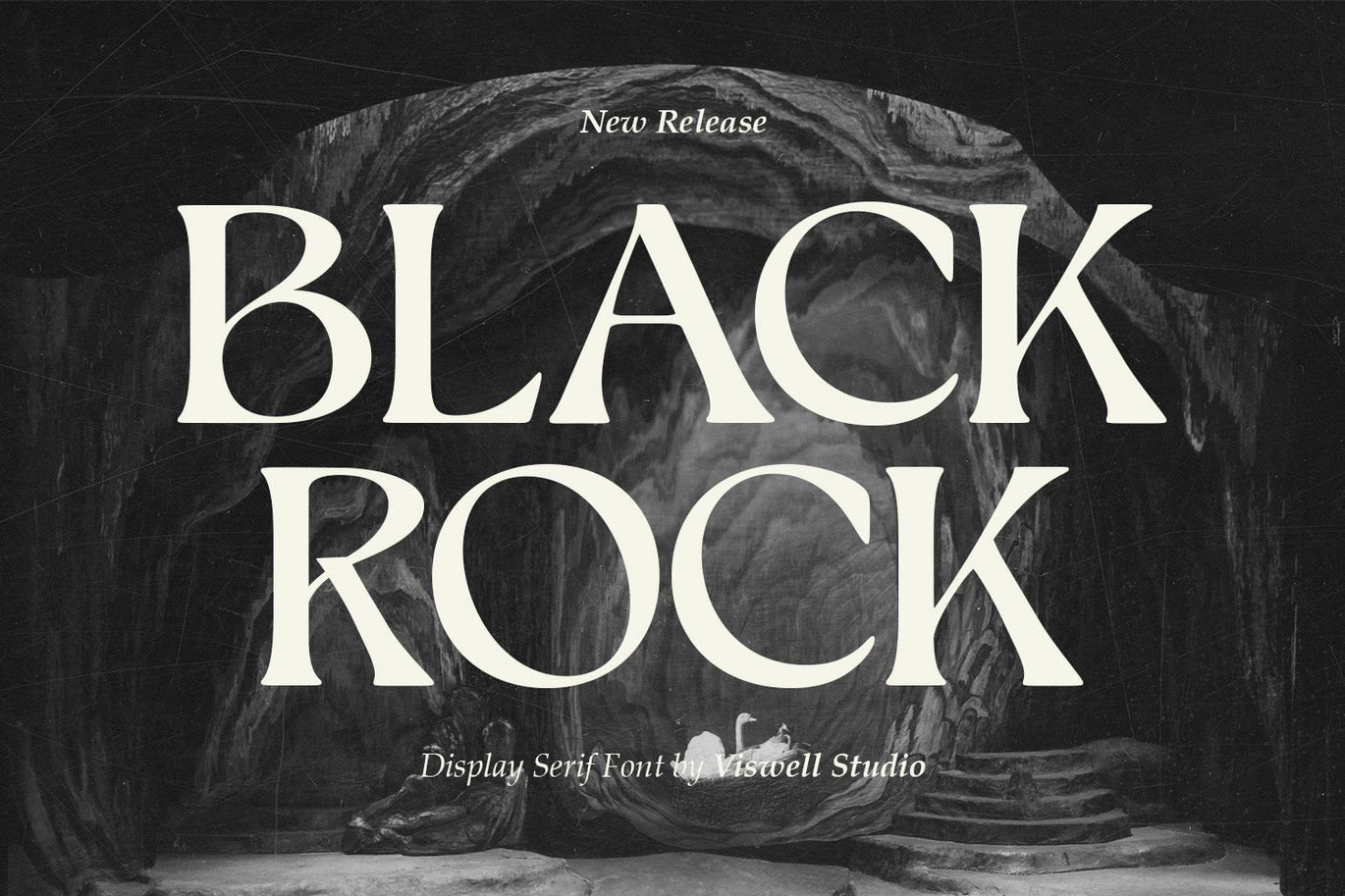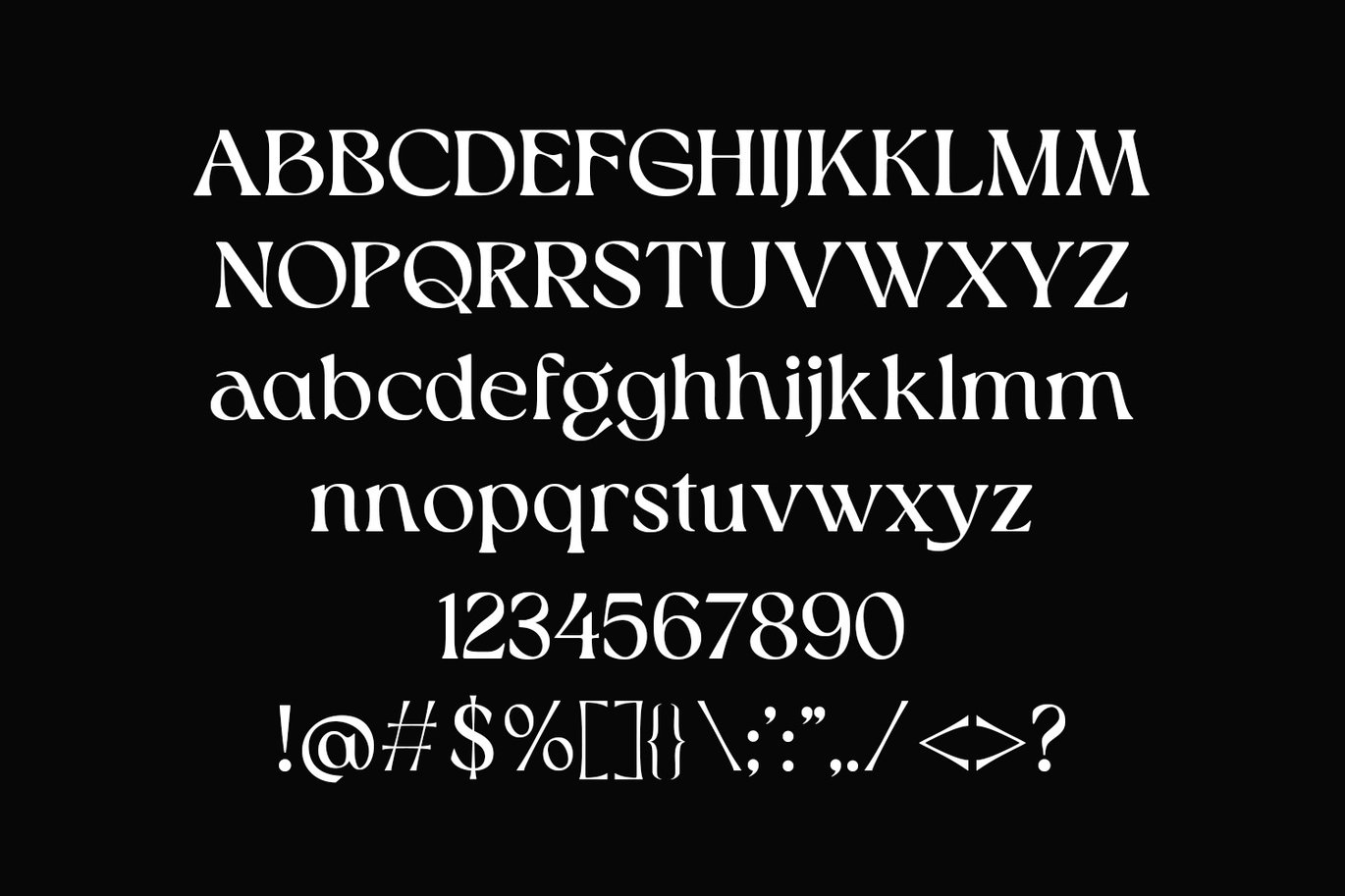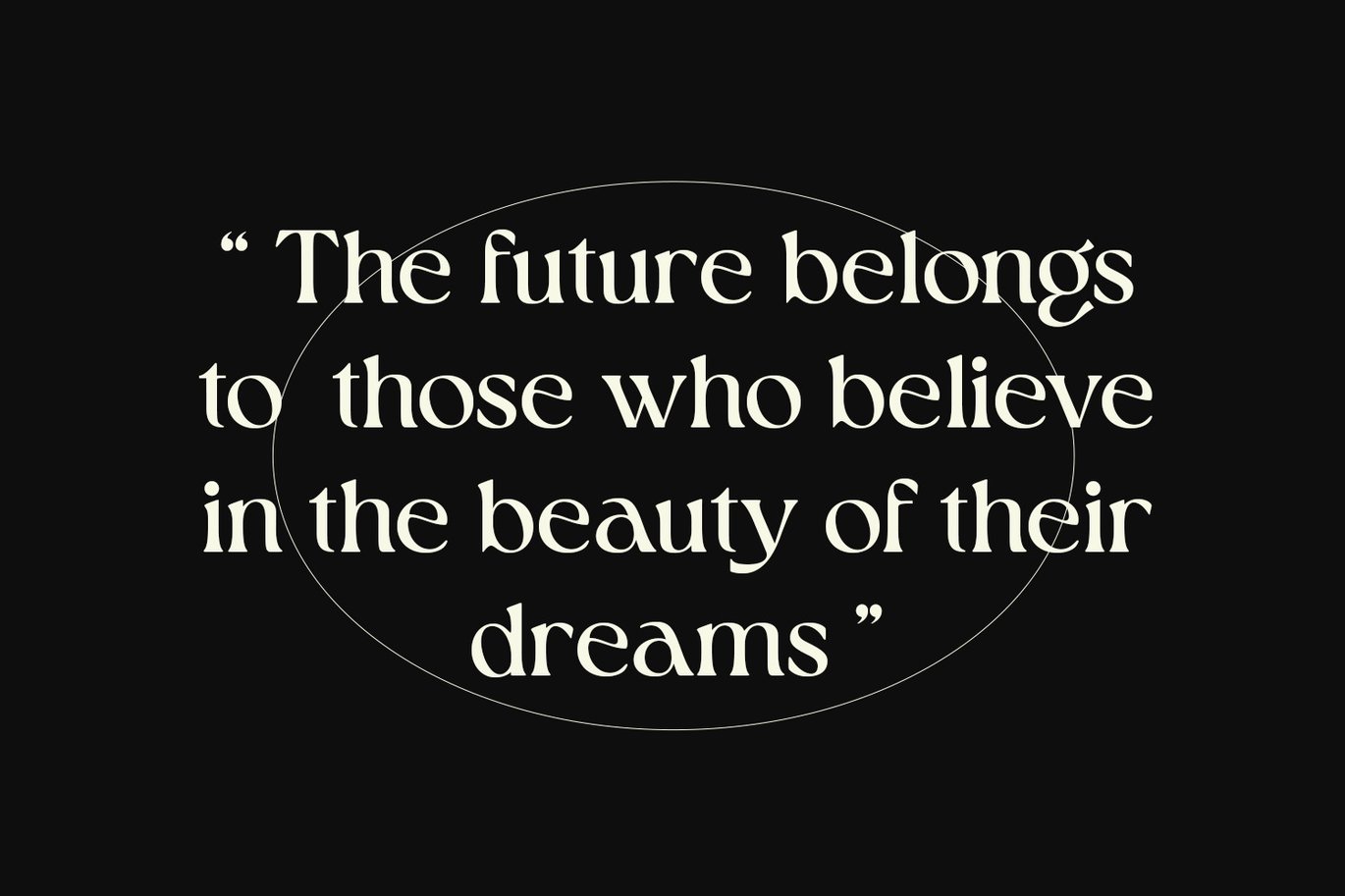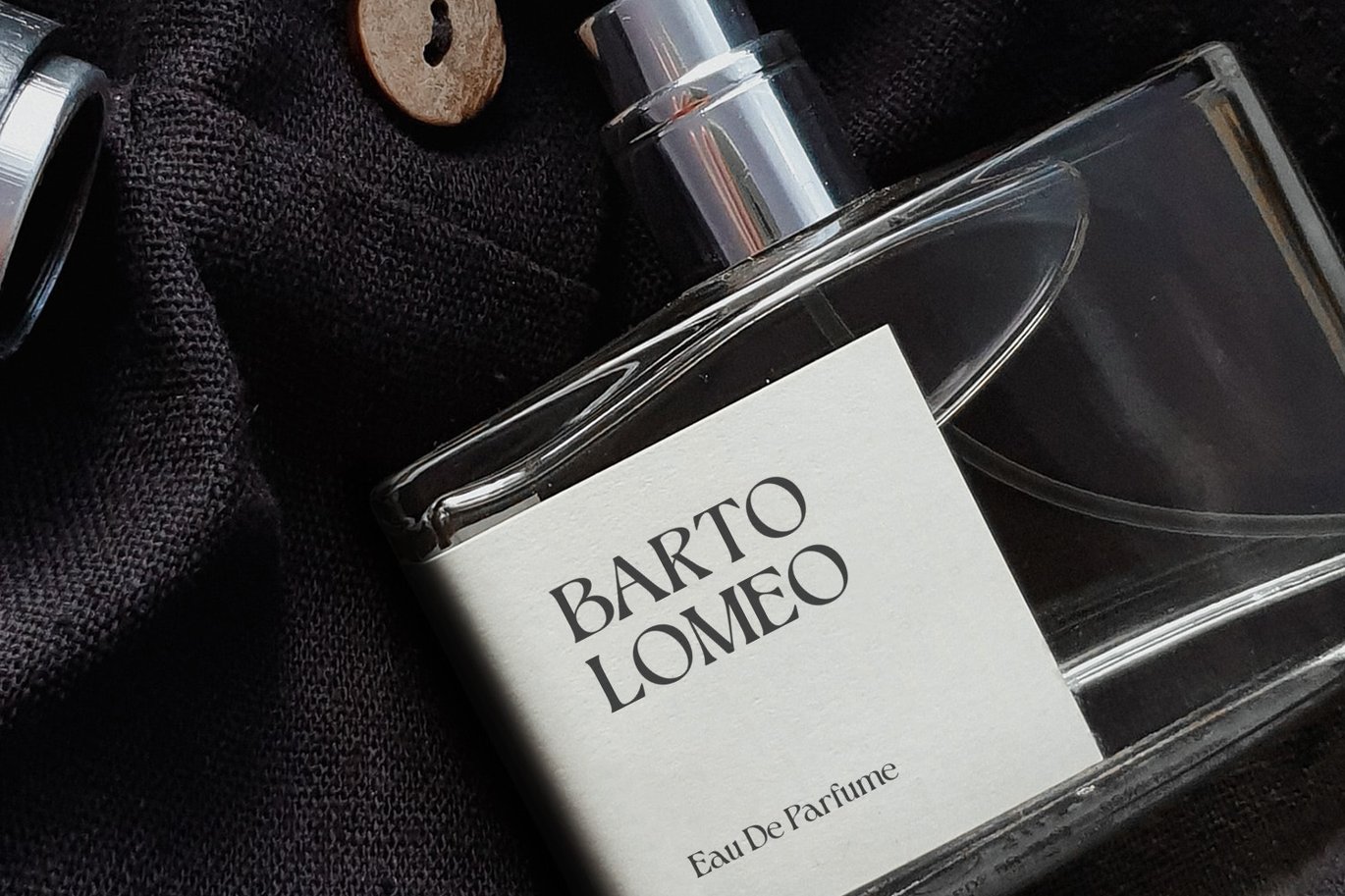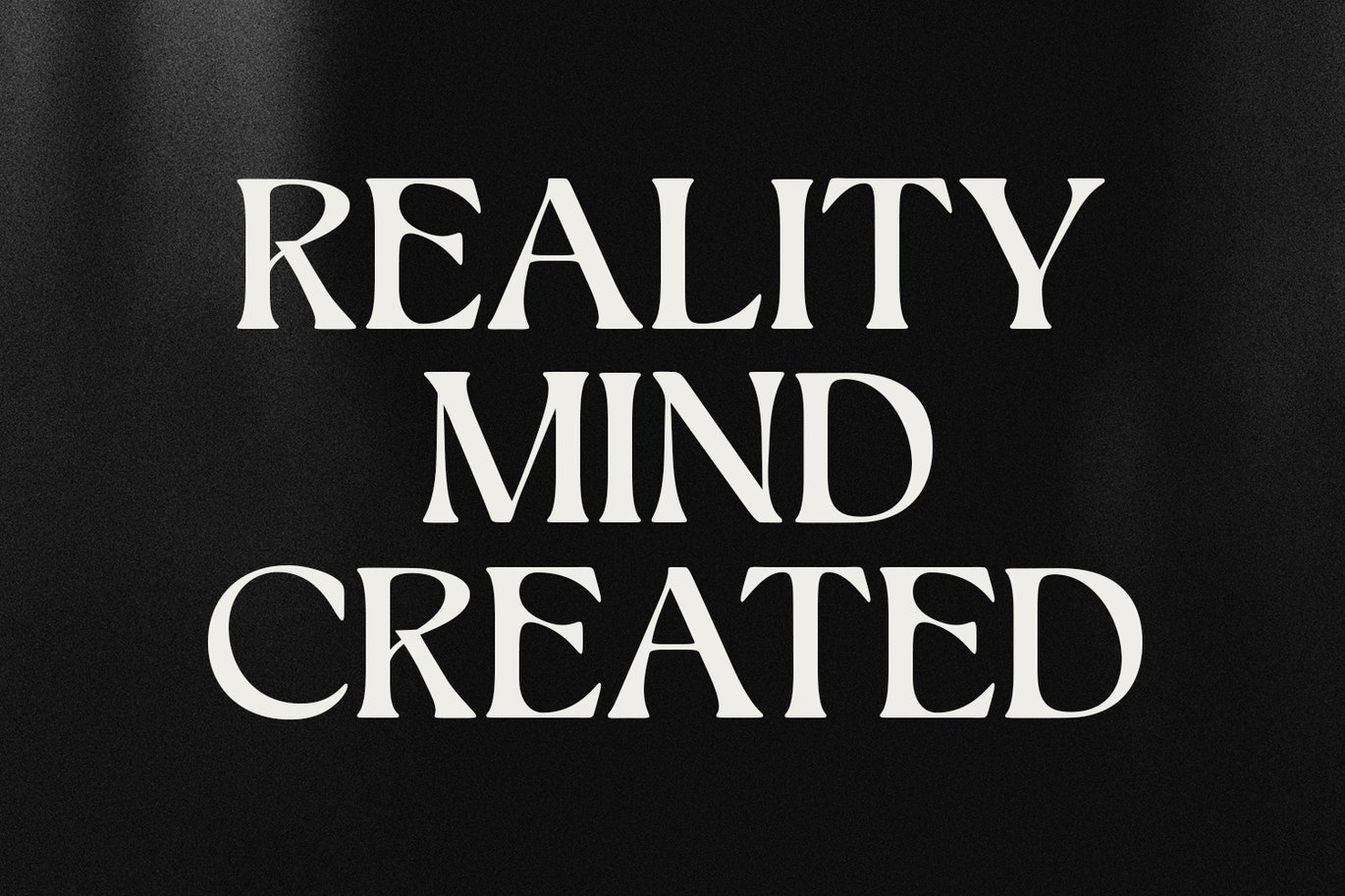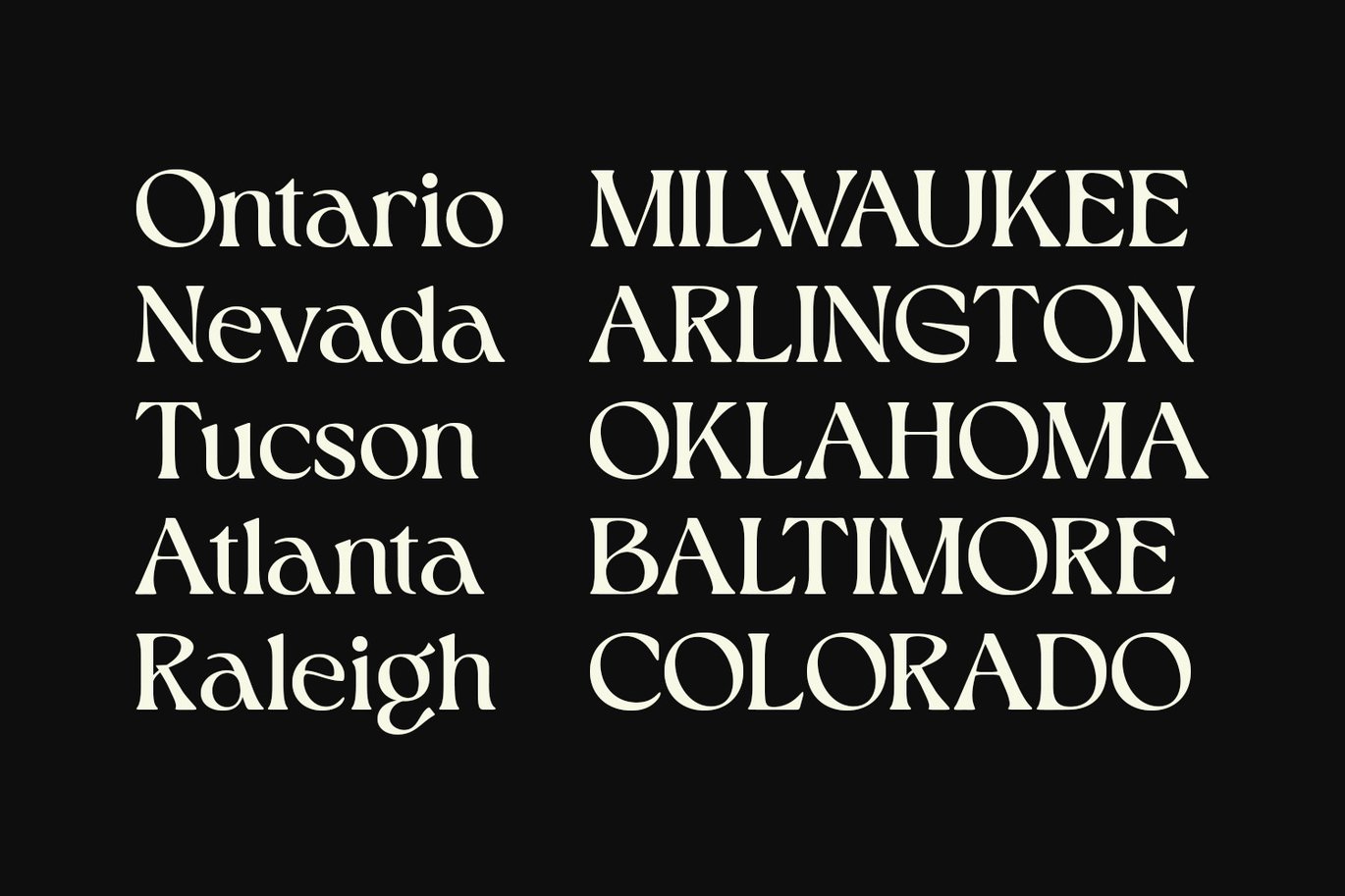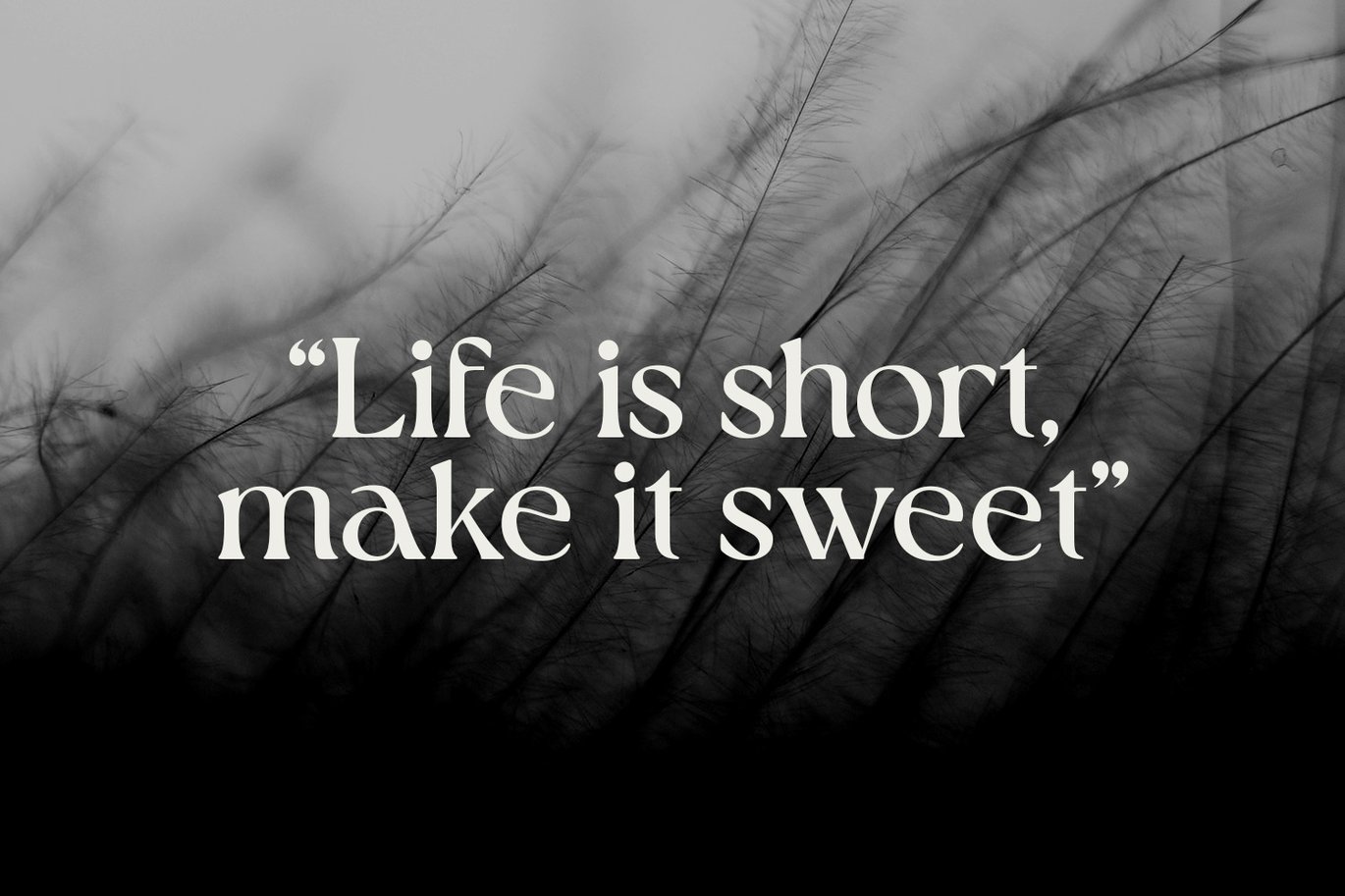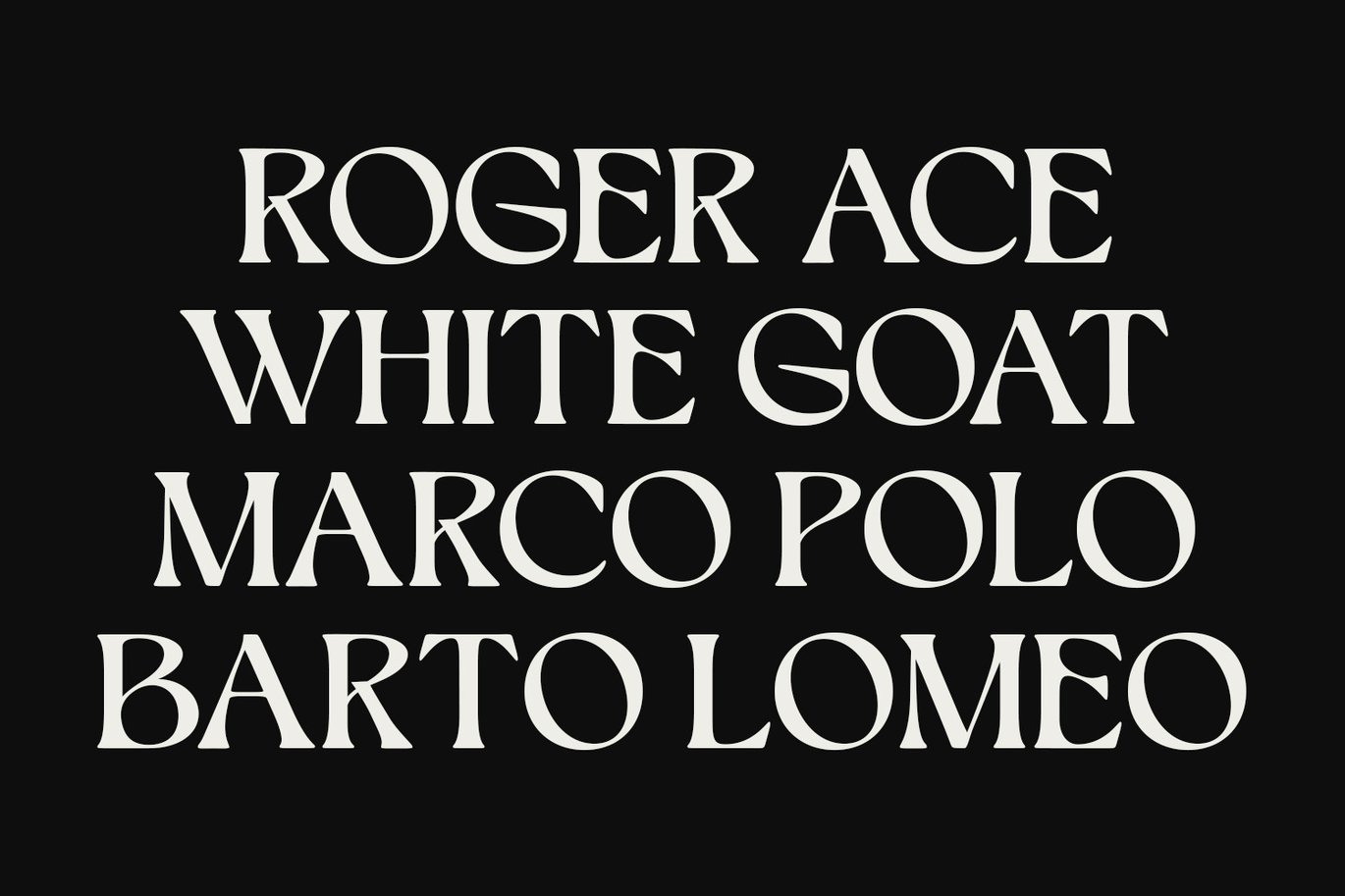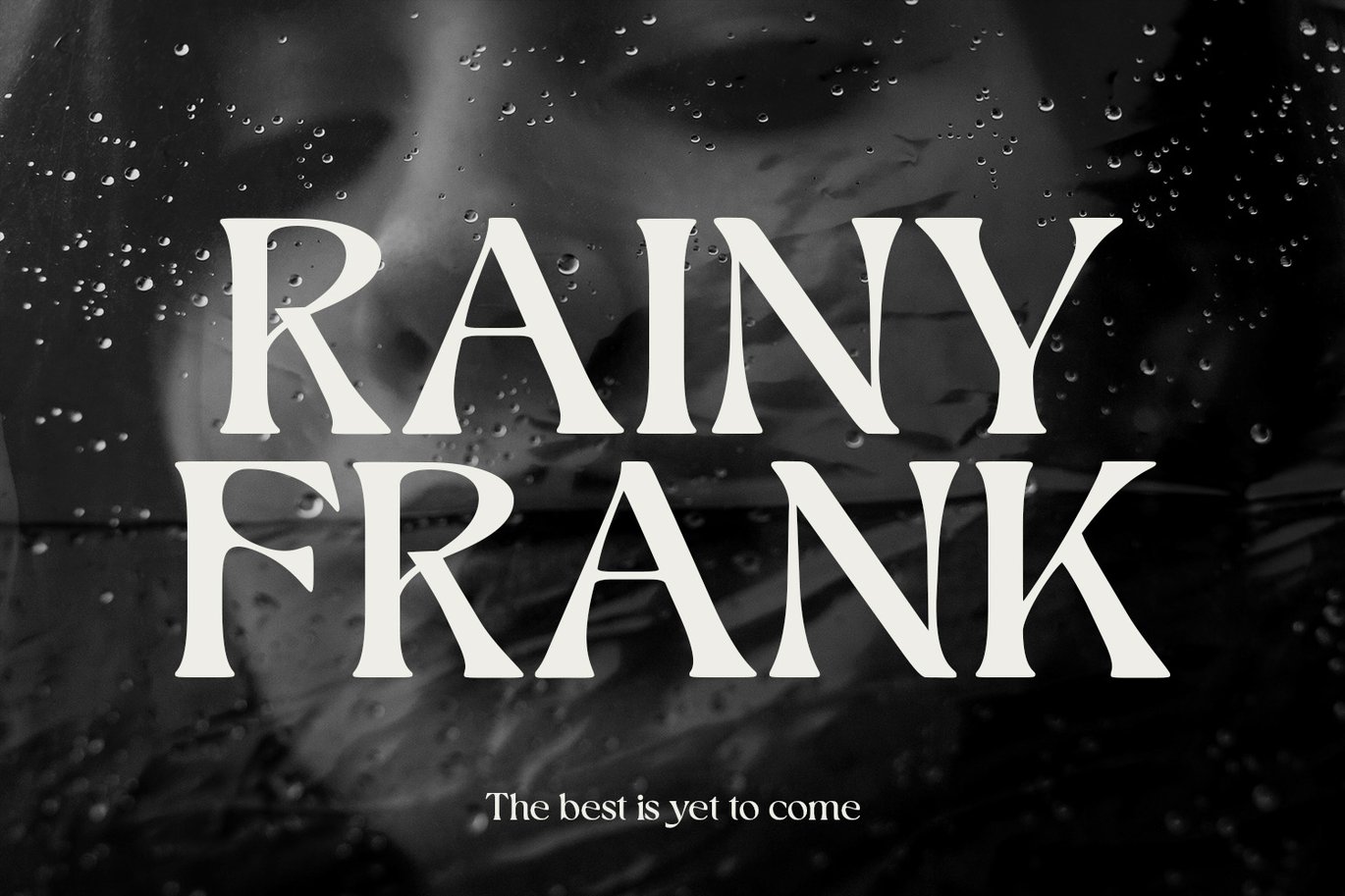
Black Rock – Display Font
Black Rock is a powerful and versatile display serif font designed by Viswell Studio to make a statement. With bold curves and sharp details, it combines timeless elegance with a modern edge, making it ideal for high-end branding, editorial layouts, and captivating headlines. Inspired by the rugged beauty of nature, Black Rock evokes the grandeur of cliffs and caves, bringing depth and character to any project. Whether used for magazine covers, logos, or artistic visuals, this font stands out with sophistication, adding a distinct, luxurious touch to every design.